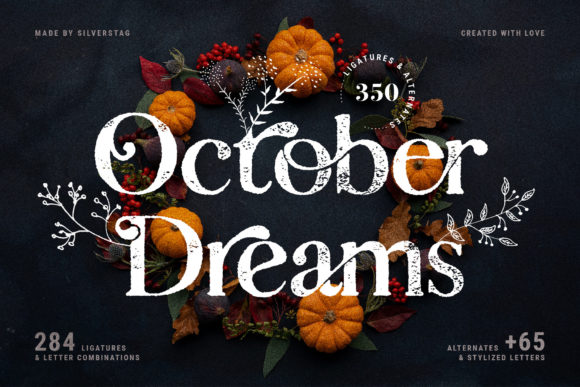
October Dreams Font is the ultimate epitome of elegance and uniqueness! If you're looking for a font that will make your designs stand out, then you've come to the right place! This serif font is not only stunningly beautiful, but it also comes with some incredible features that will make your design experience a breeze!
Created by SilverStag, October Dreams Font is packed with tons of glyphs and swashes that are easily accessible thanks to its PUA encoding. This feature alone saves you a lot of time and effort that you would have otherwise spent searching for these elements elsewhere.
What's even more amazing about October Dreams Font is its versatility. This font can be used for almost any design project, whether it's a wedding invitation, a logo, a branding project, or even a social media post. Its distinct and eye-catching style will have your audience falling in love with your designs!
But that's not all. October Dreams Font is also incredibly easy to read, making it perfect for projects that require legibility. Its serif style adds a touch of sophistication that is sure to impress your clients and customers alike.